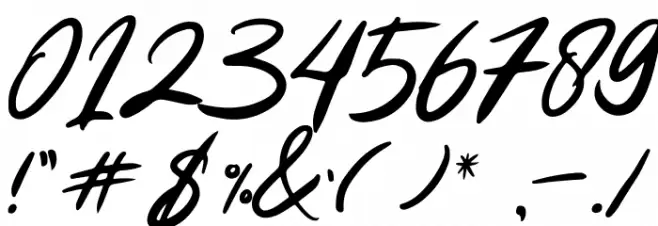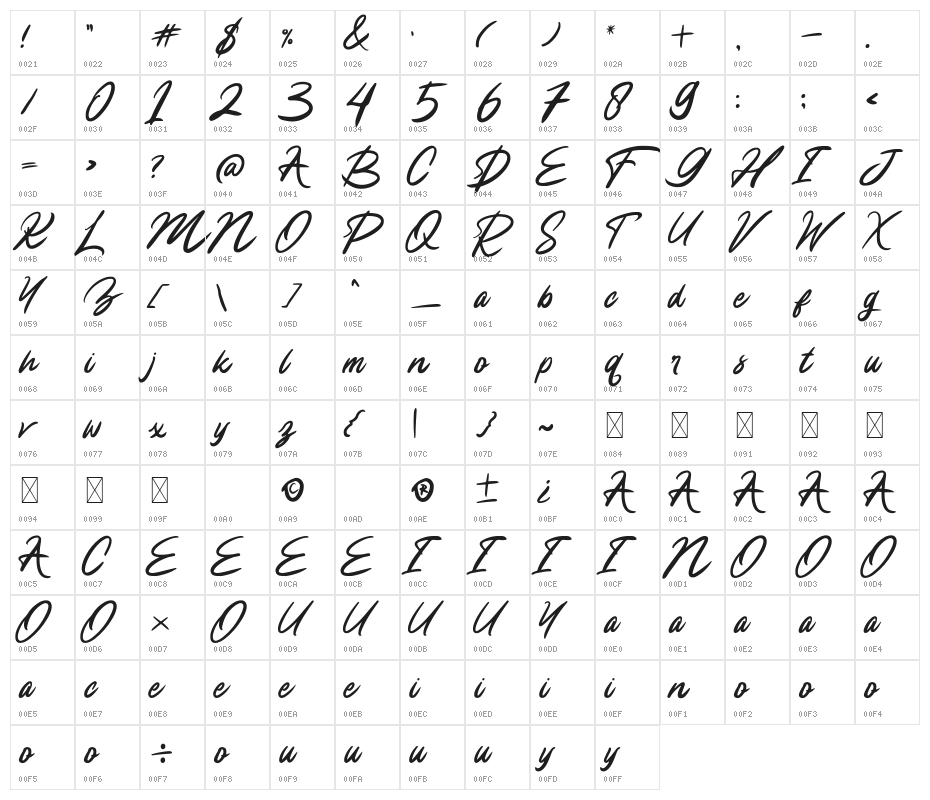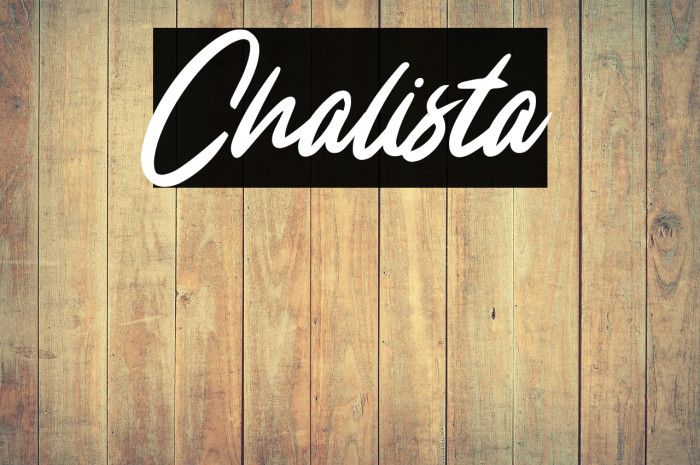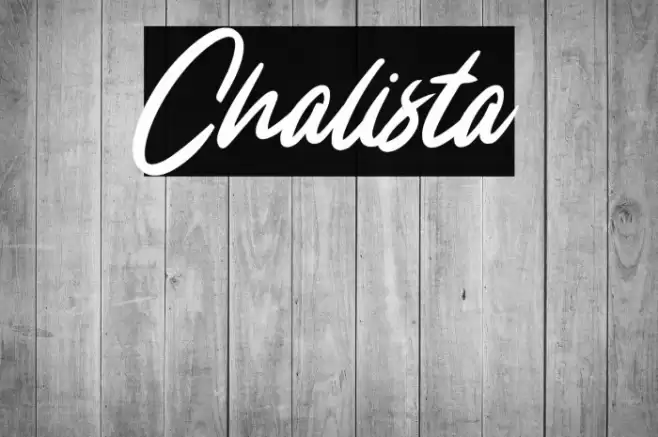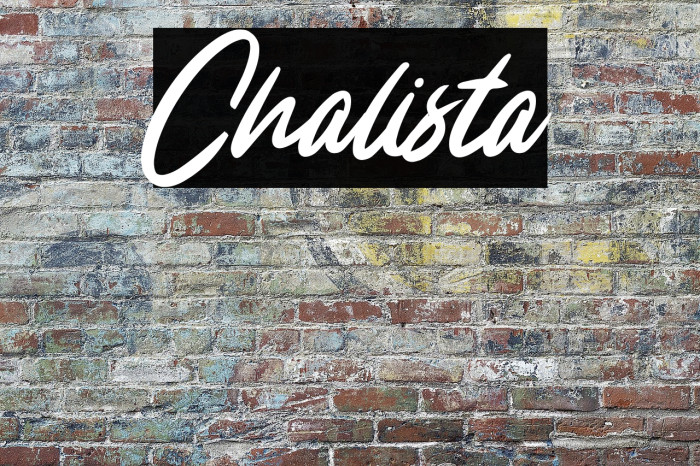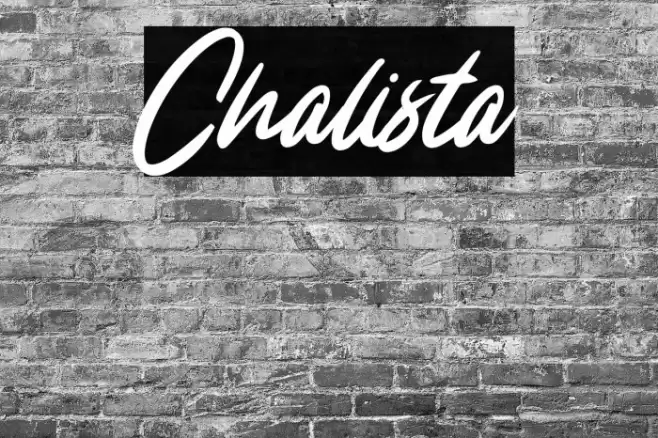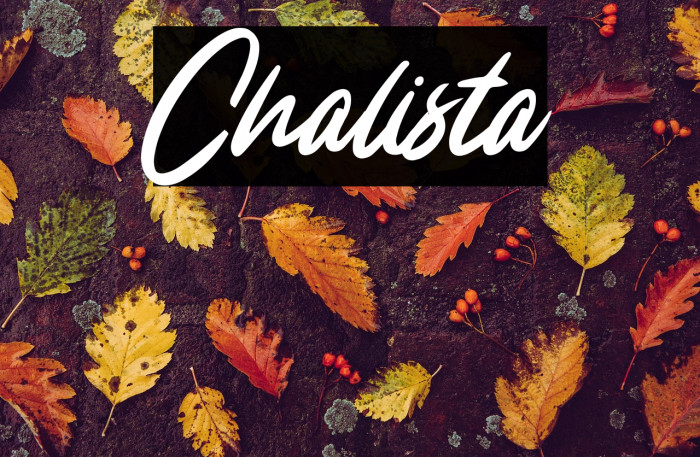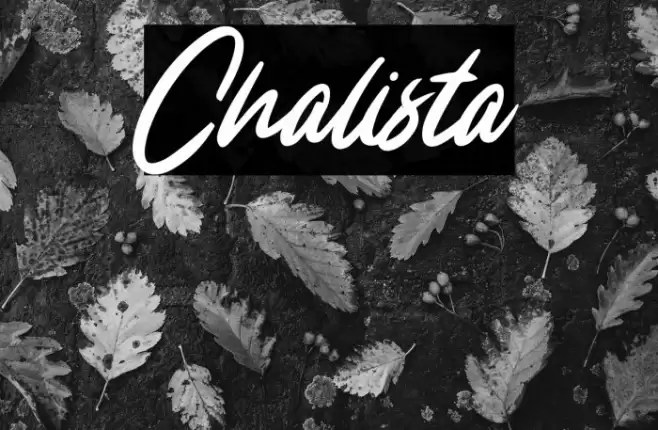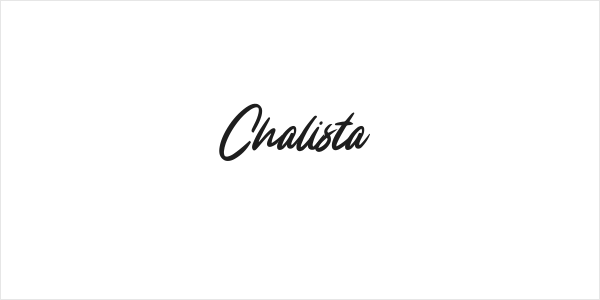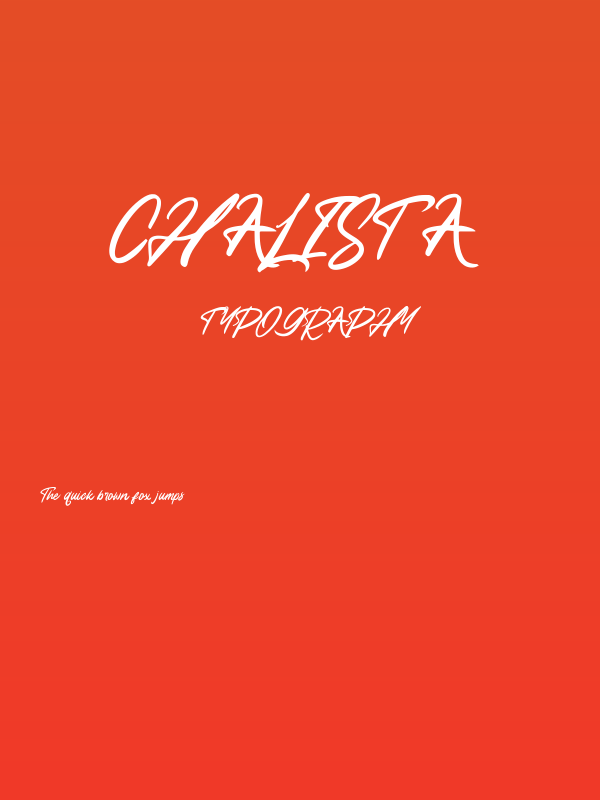
Chalista Font
Chalista Description
This font features a dynamic and flowing script style, characterized by its elegant and fluid letterforms. The uppercase letters exhibit a sense of movement with their sweeping curves and connected strokes, while the lowercase letters maintain a consistent rhythm, enhancing readability. The numerals are bold and slightly slanted, complementing the overall cursive aesthetic. Special characters are thoughtfully integrated, maintaining the font's cohesive style. This font's design is both expressive and versatile, making it suitable for a variety of creative applications.